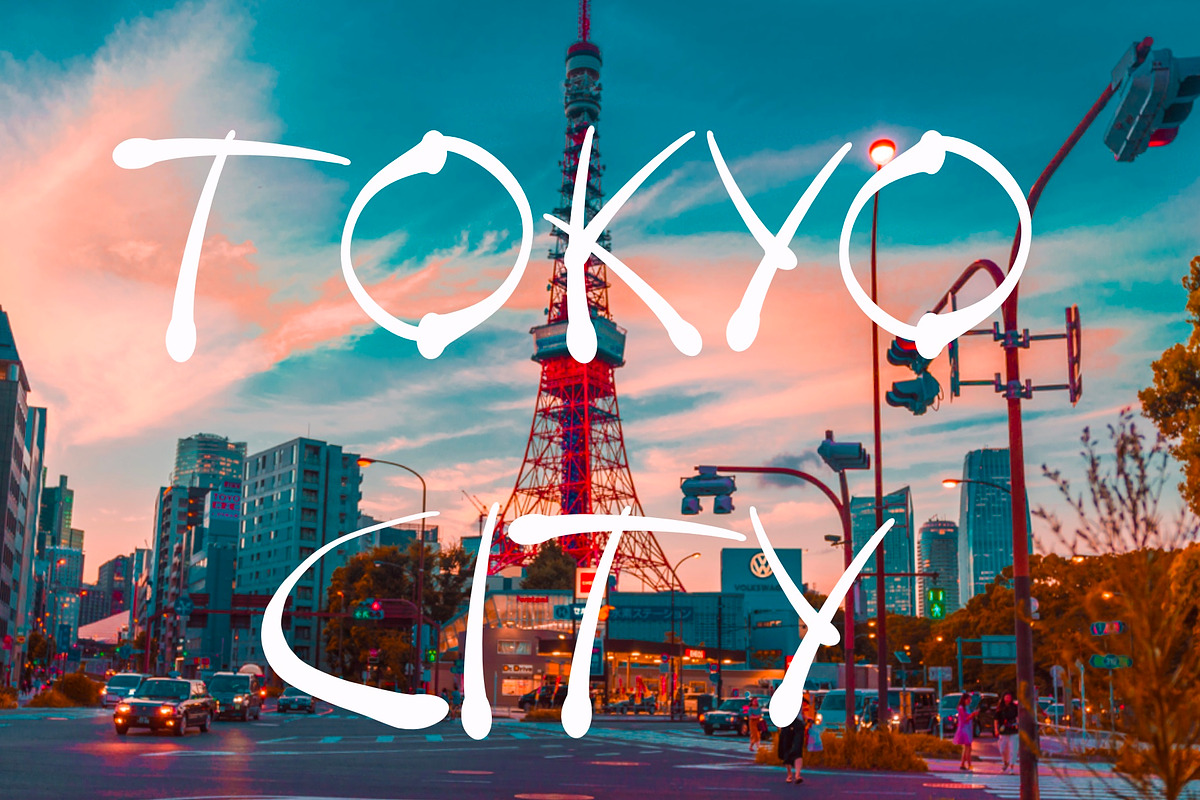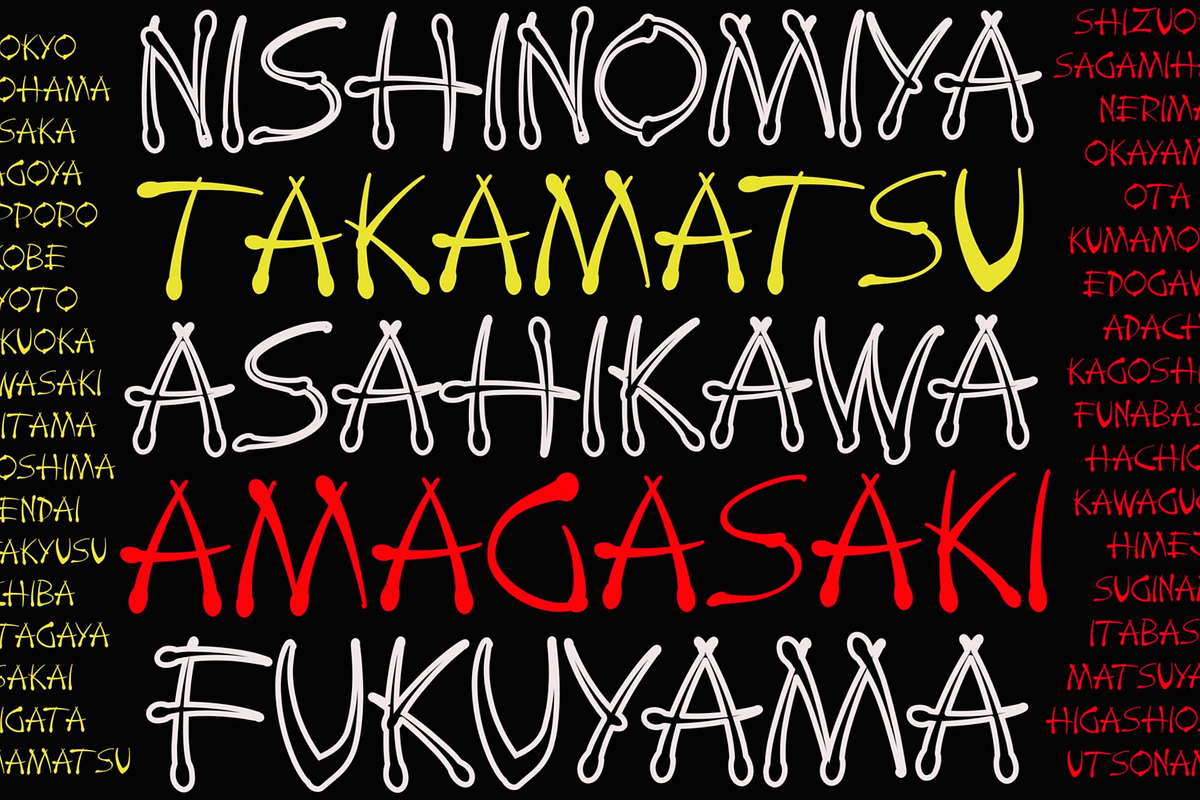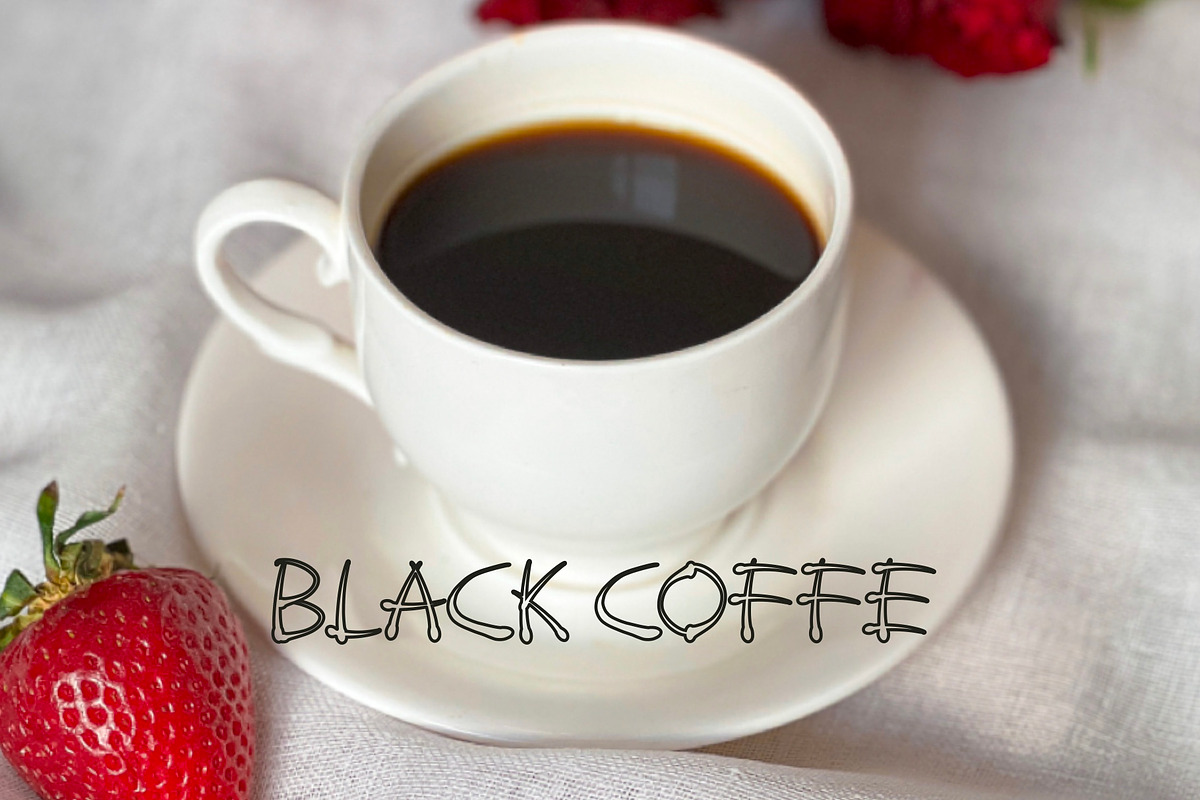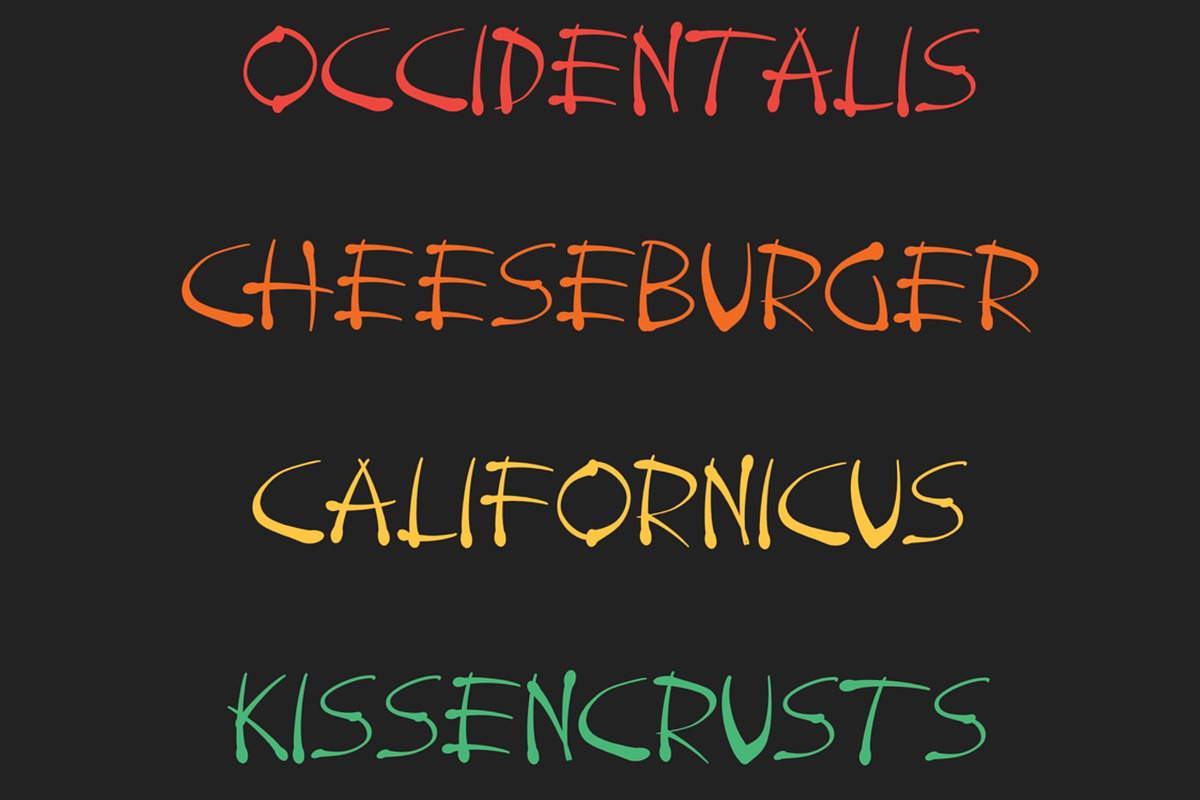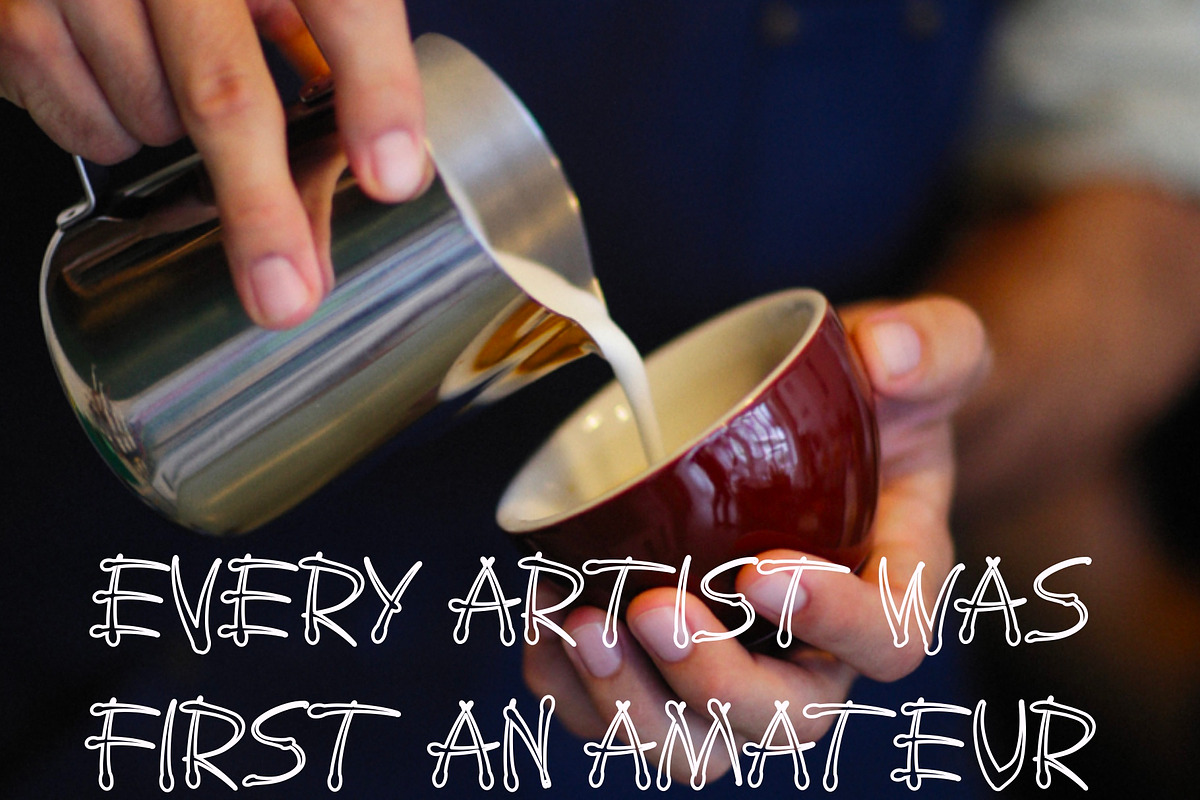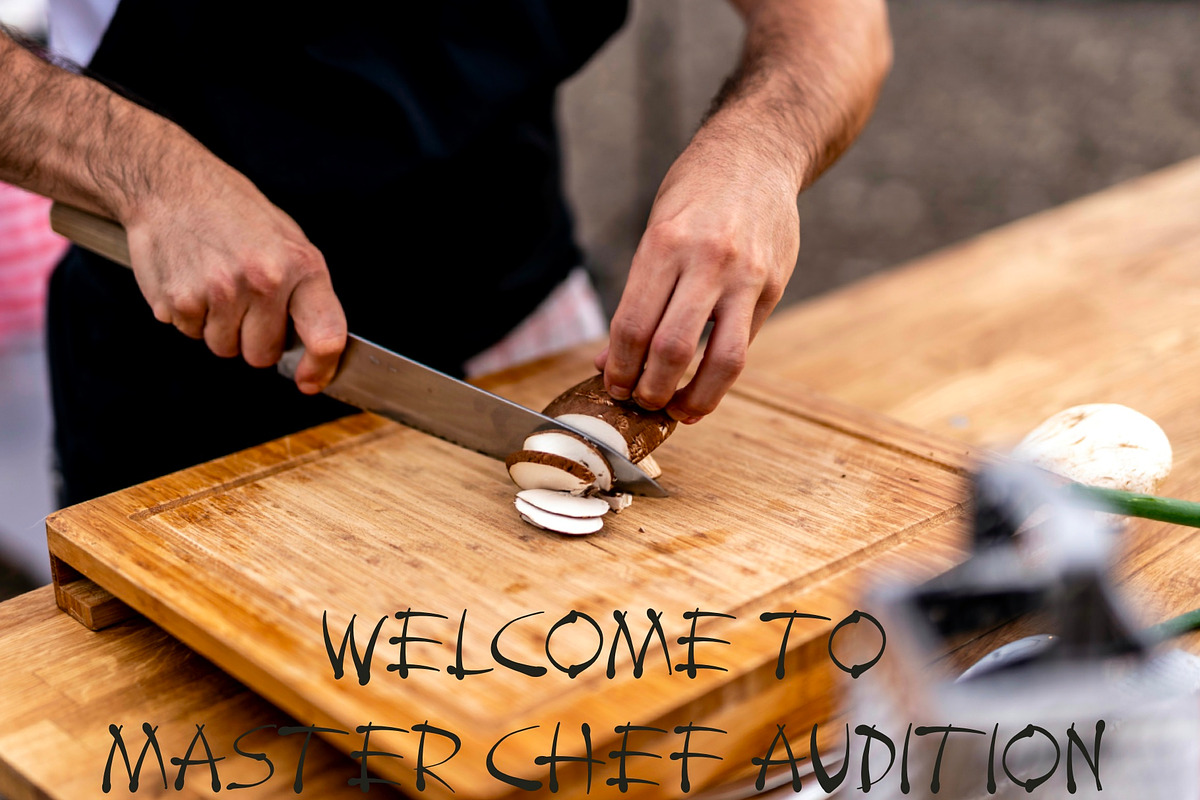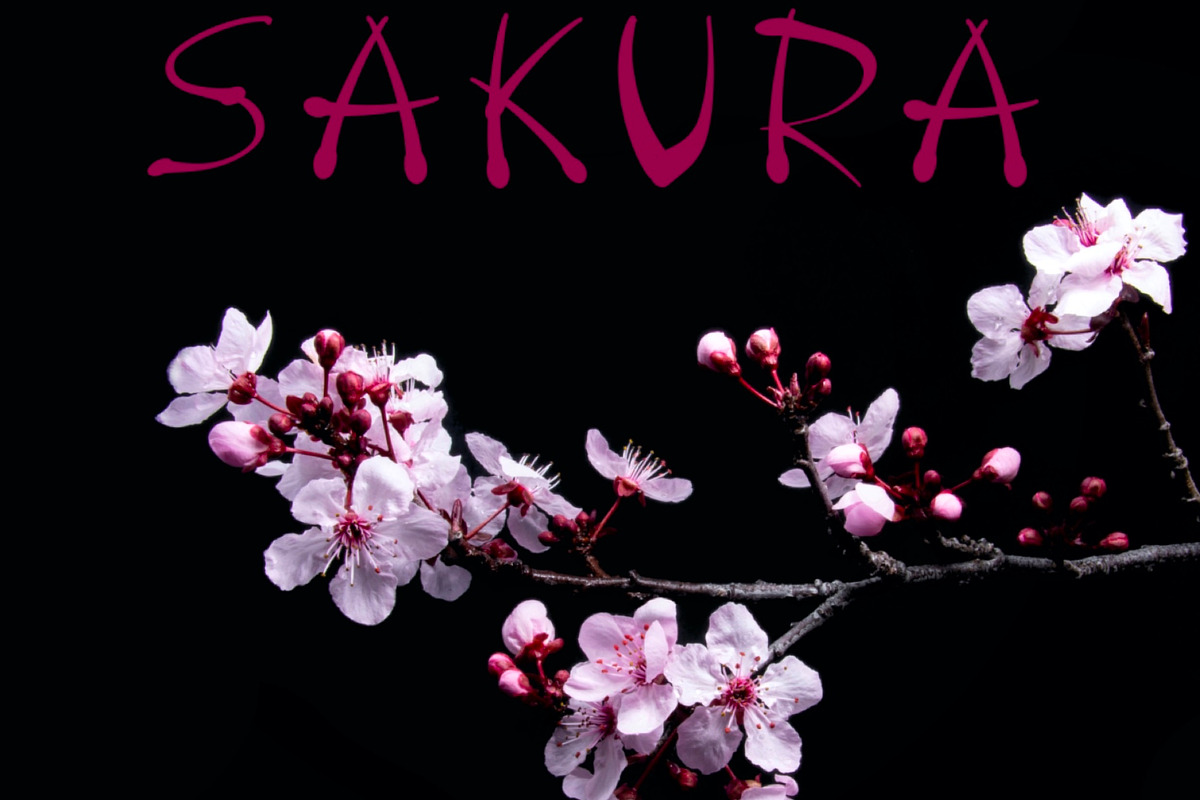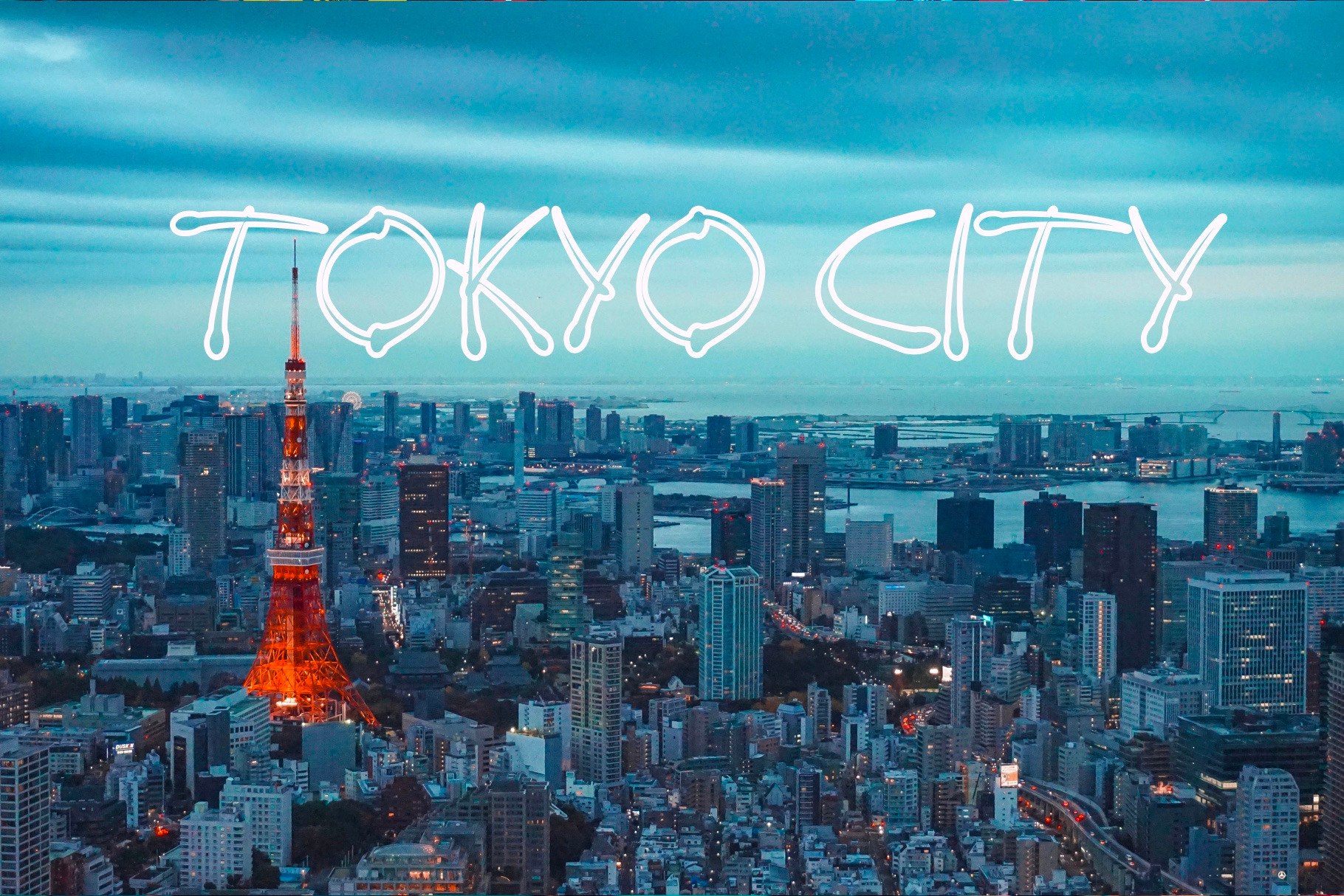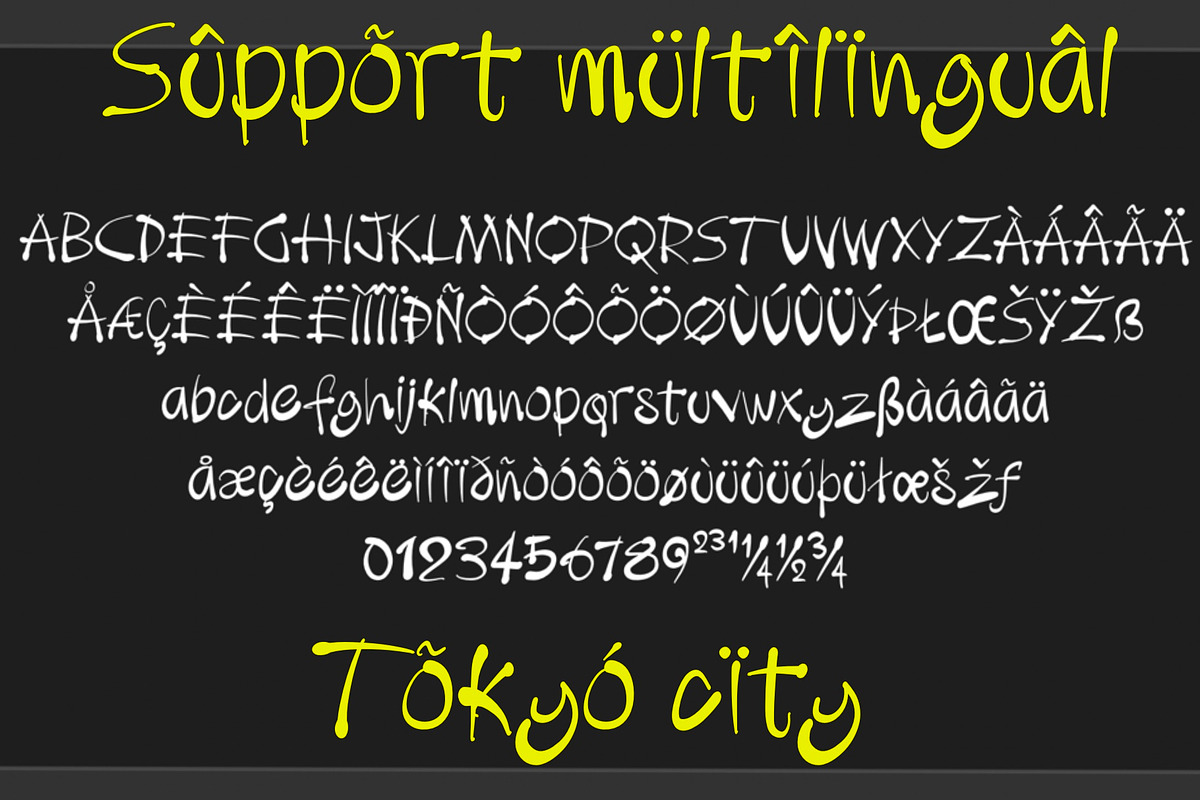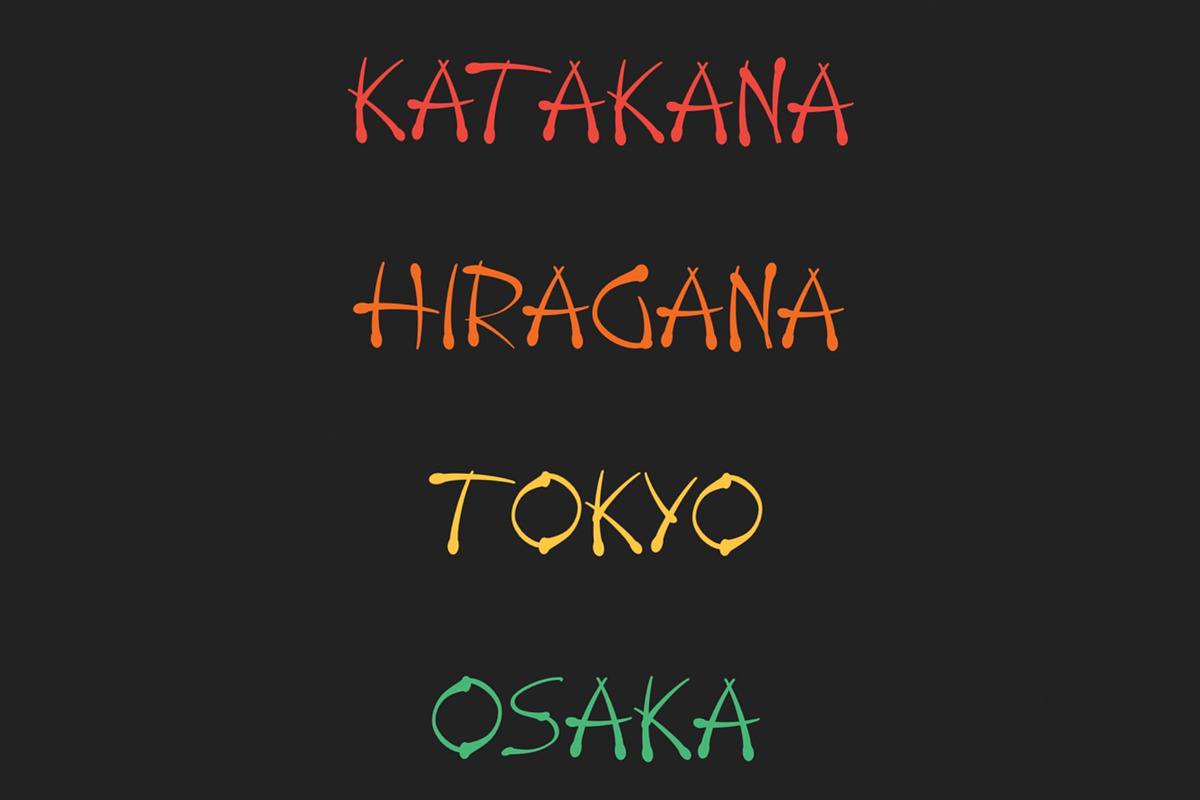
Tokyo City Handwritten Display Font
Tokyo City is simple and elegant display font. With freestyle and authentic Handmade stroke, very useful and flexible function font. Tokyo City support multilingual more than 100+ languages. Tokyo City font perfect for movie title, poster, book cover, sosial media, long text and short text letter, or very nice for your secondary font. Happy working with your new font. What you get : Tokyo City (OTF), Tokyo City (TTF). See you, Rasmindos